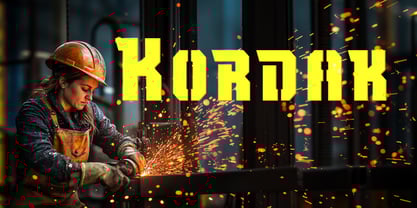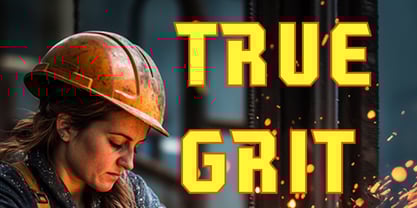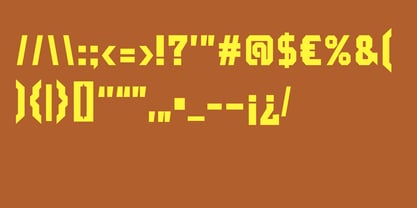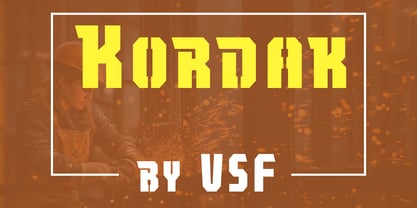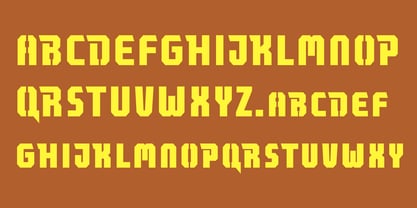
Kordak
by VSF
The Kordak Font Family was designed by Vasil Stanev and published by VSF. Kordak contains 1 styles.
Kordak is a bold, mechanical stencil display. Perfect for use on mechanical equipement, vehicles, heavy machinery, or for branding of companies related to these.
Designers: Vasil Stanev
Publisher: VSF
Foundry: VSF